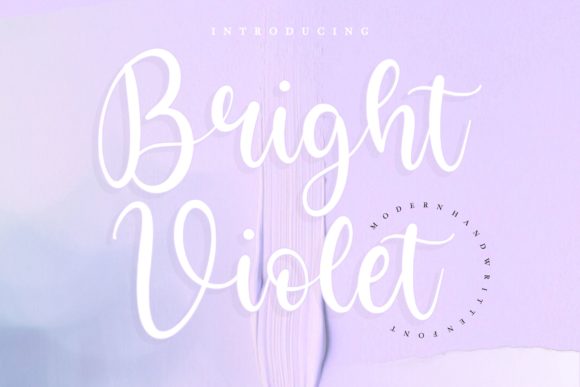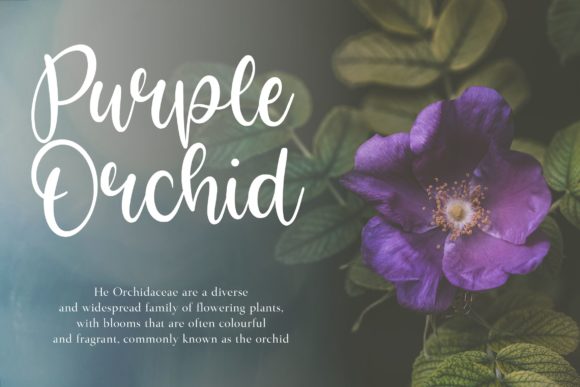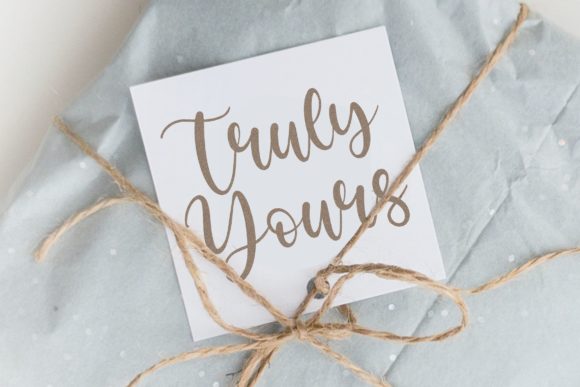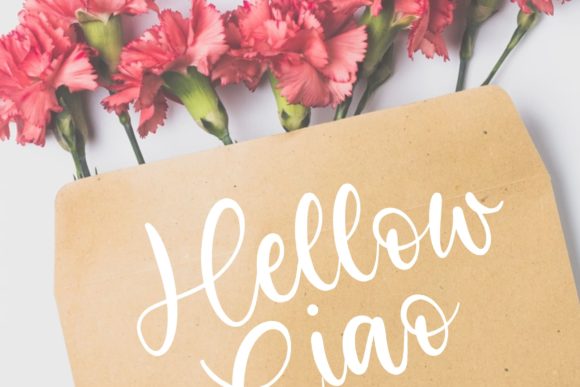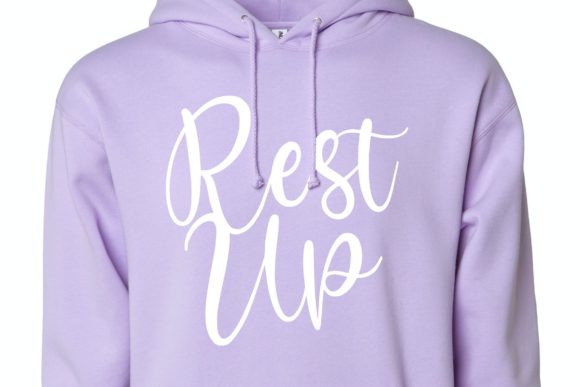
About Bright Violet Font
Bright Violet is a sweet and elegant handwritten font. Get inspired by its delicate style and use it to create gorgeous wedding invitations, beautiful stationary art, eye-catching social media posts, and much more!